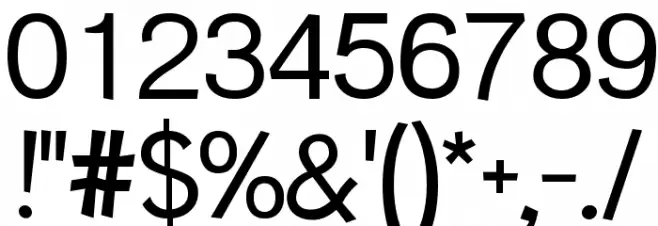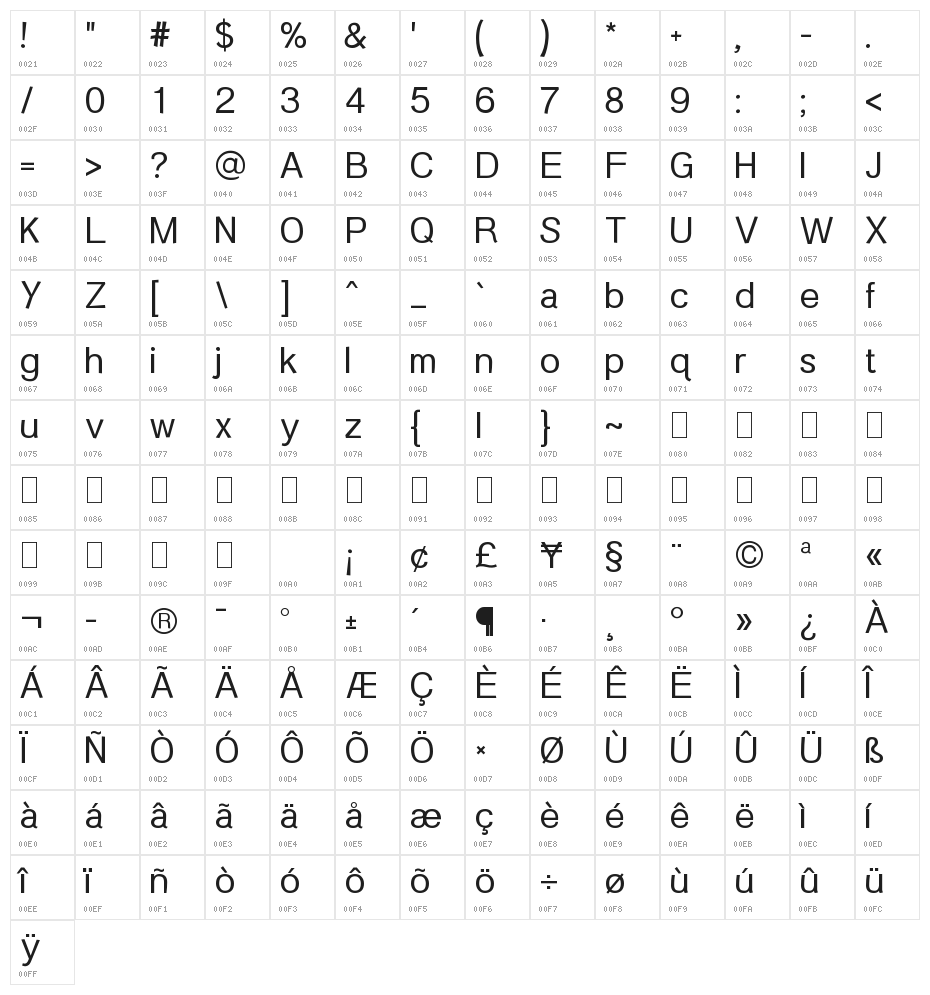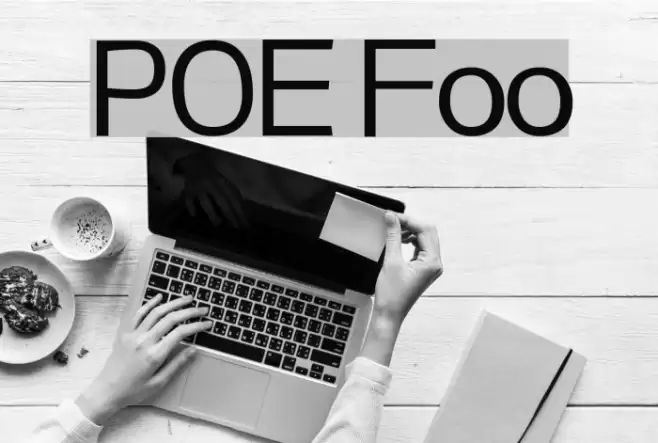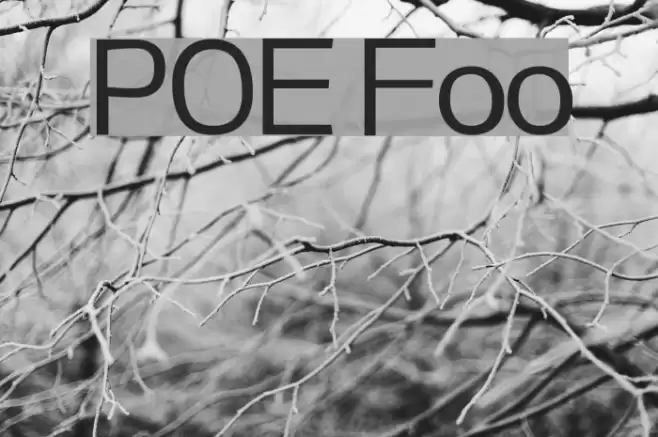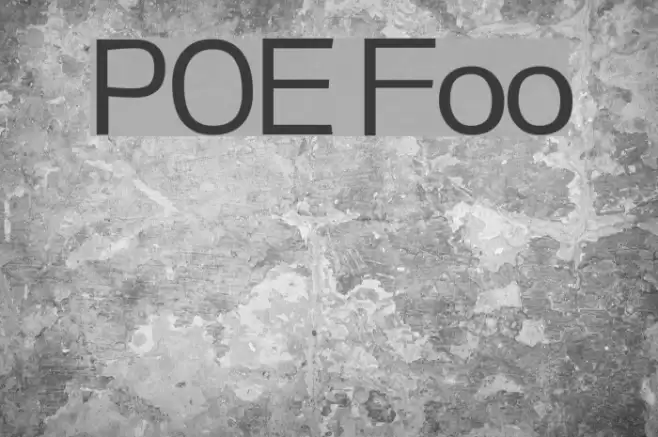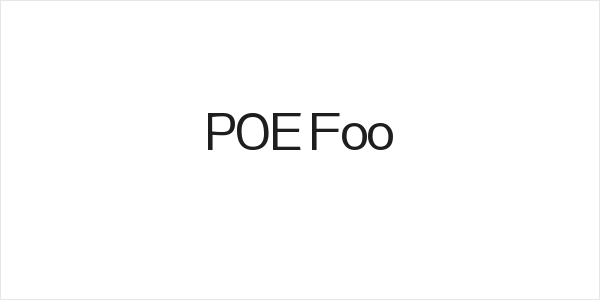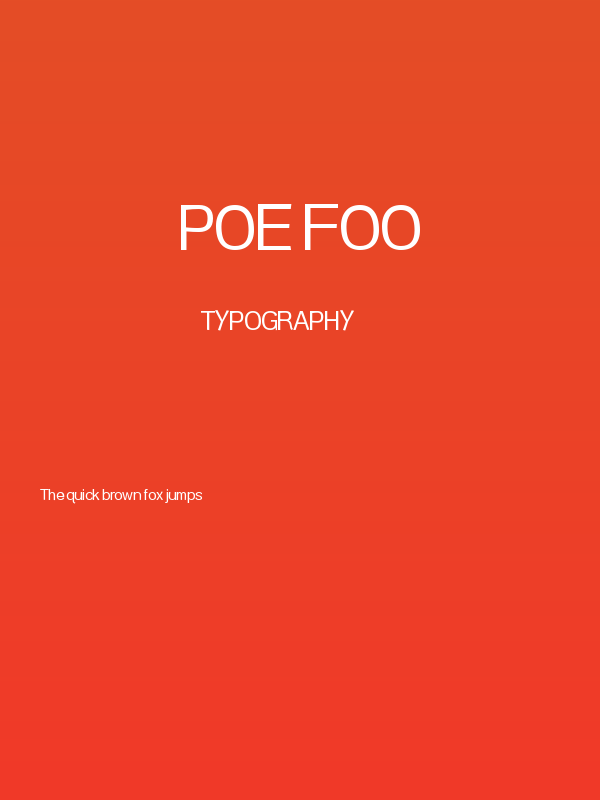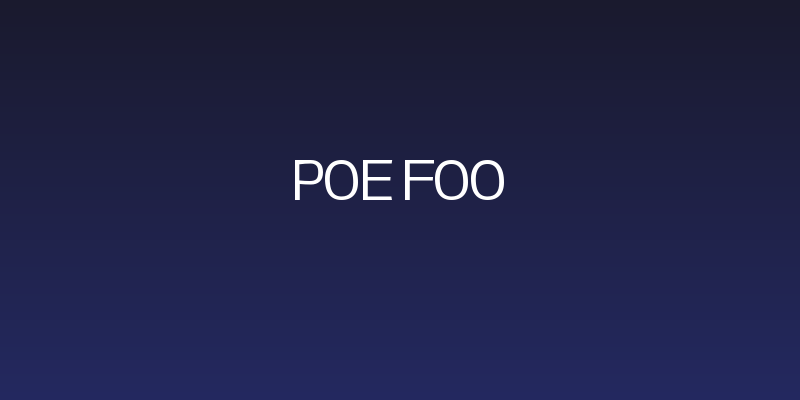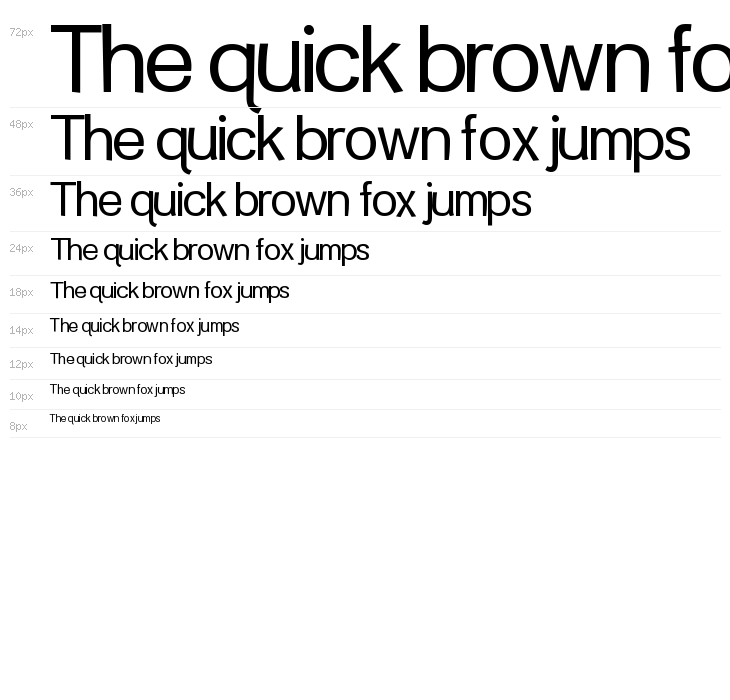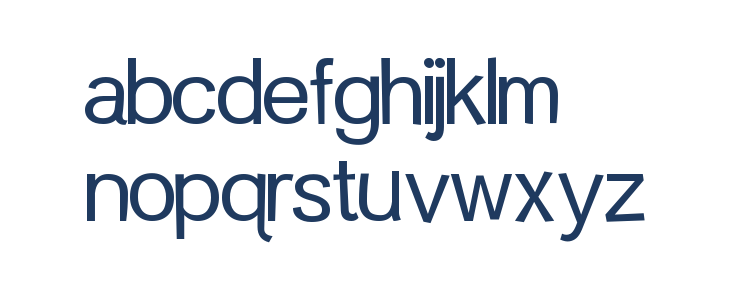
POE Foo Font
POE Foo Description
This font features a clean and modern sans-serif style with uniform stroke widths, providing a sleek and professional appearance. The characters are well-proportioned, with a consistent height that ensures readability across various sizes. The uppercase letters are bold and assertive, while the lowercase letters maintain a smooth and approachable look. The numerals are clear and distinct, making them suitable for both digital and print media. Special characters are designed with simplicity in mind, enhancing the overall minimalist aesthetic.
Use CaseHeadlines, Body text, Logos
Proposed ProjectsIdeal for corporate branding, website headers, digital interfaces, and print media requiring a modern touch.